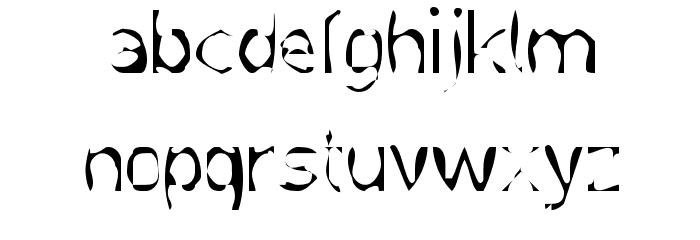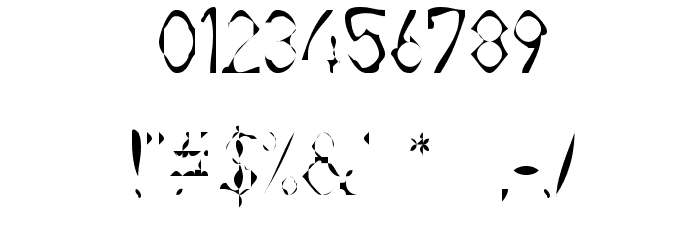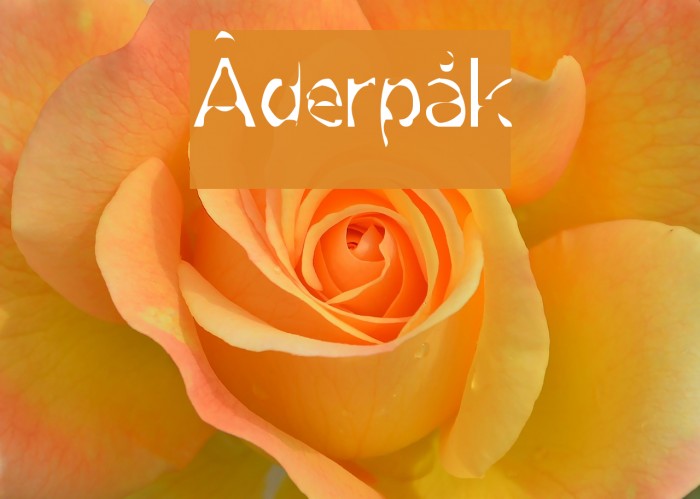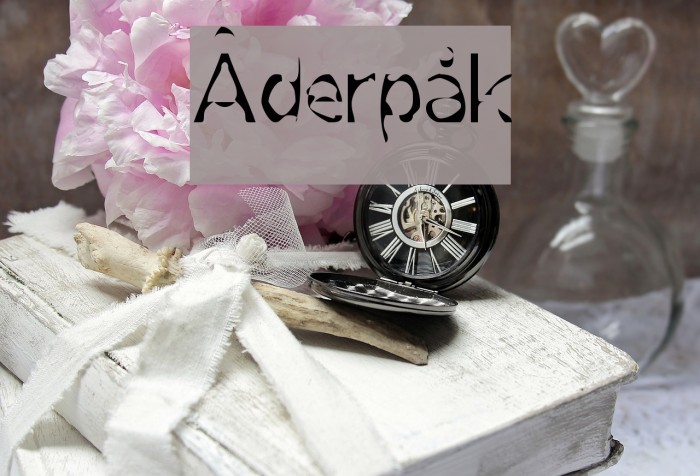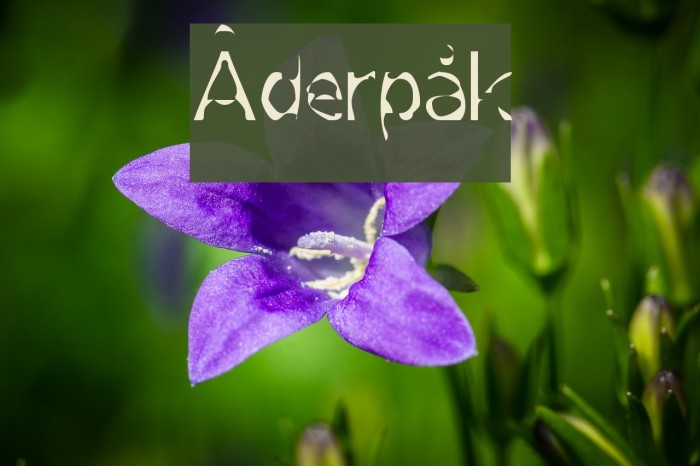
Åderpåk Font
This font features a highly decorative and abstract style, characterized by its fragmented and distorted letterforms. Each character appears as if it has been partially eroded or cut away, creating a unique and artistic appearance. The uppercase and lowercase letters maintain a consistent design theme, with irregular shapes and varying stroke thicknesses. The numbers and special characters follow the same aesthetic, adding to the font's overall cohesive look. This font is visually striking and stands out due to its unconventional and artistic design.
A decorative, abstract font with fragmented and distorted letterforms.
- Proposed Projects: Ideal for artistic projects, album covers, posters, and any design requiring a bold, unconventional look.
- Use Case: Logos, Posters, Artistic projects